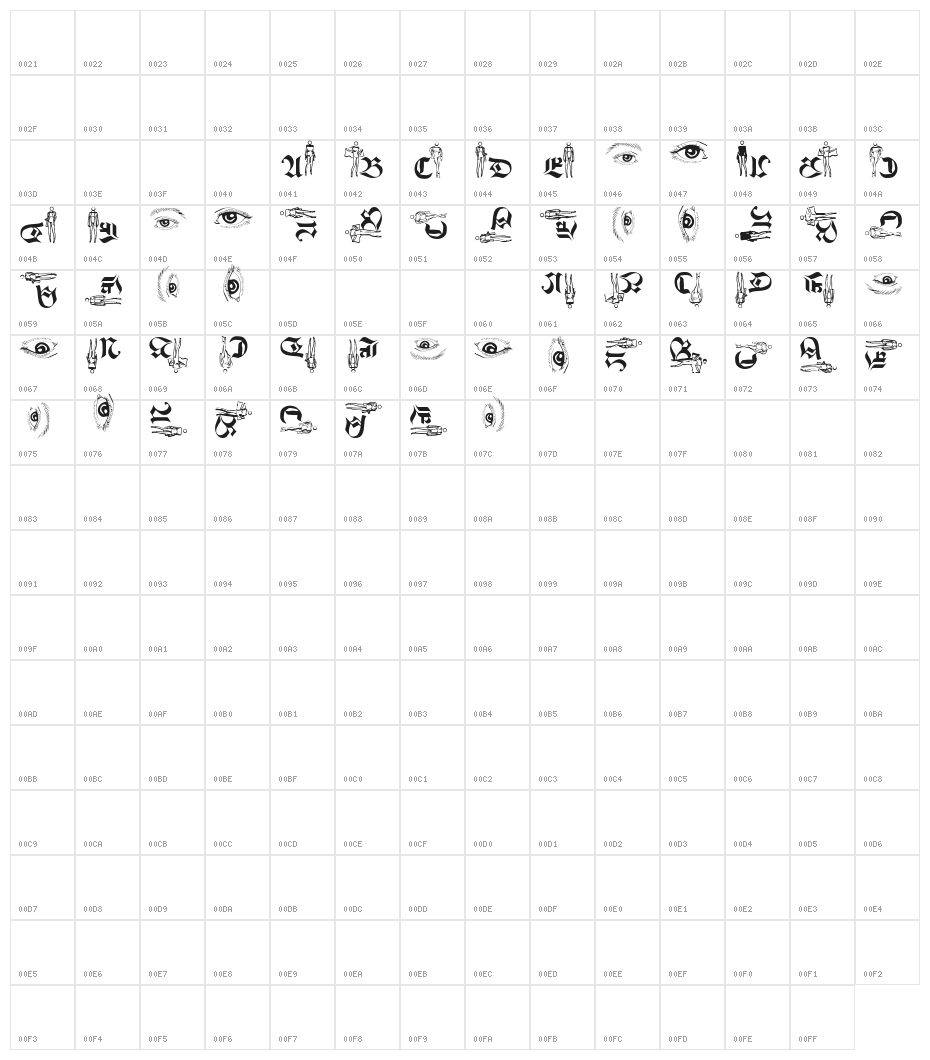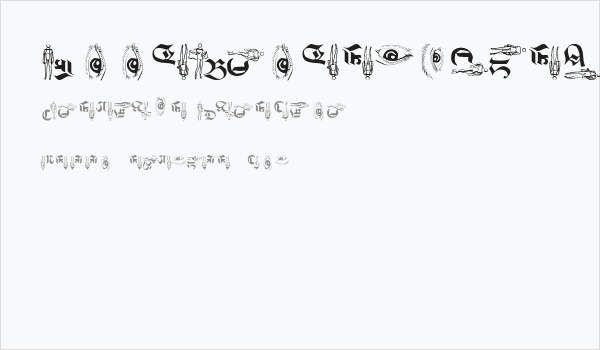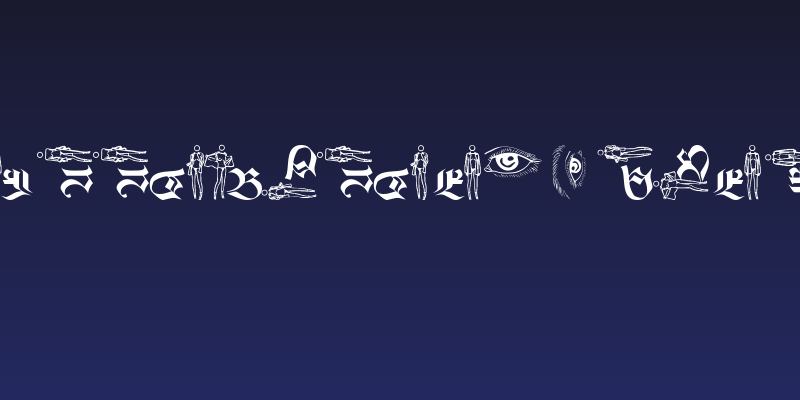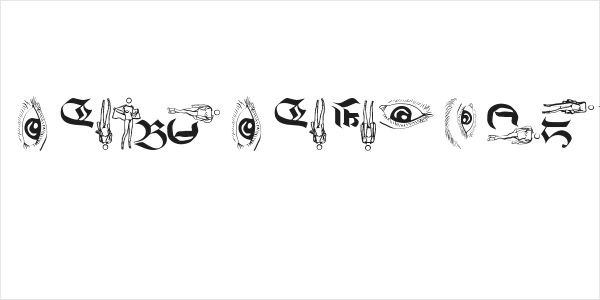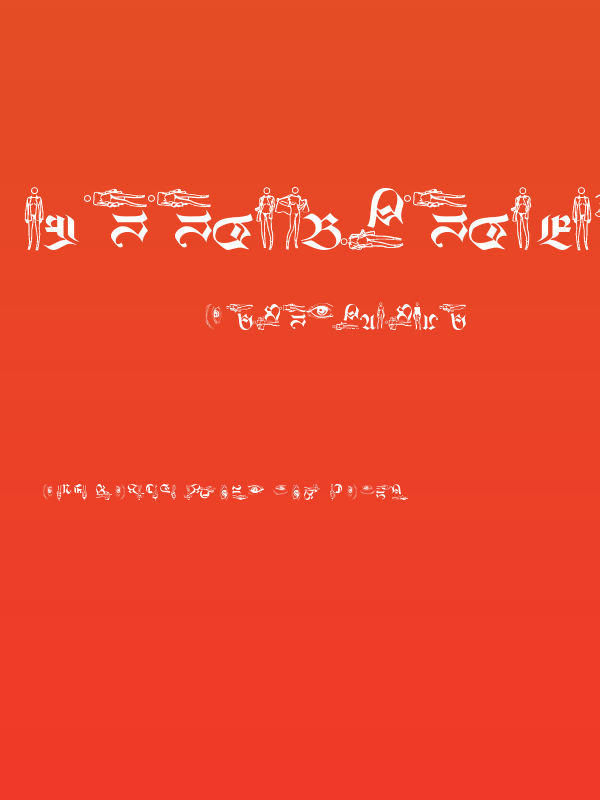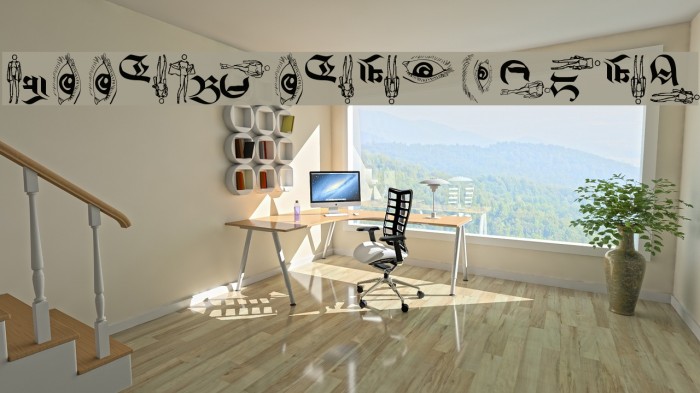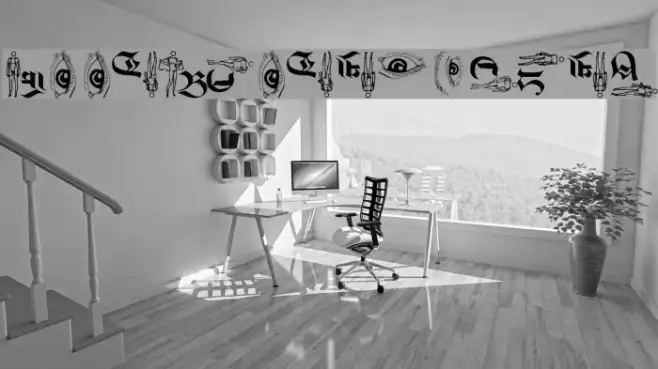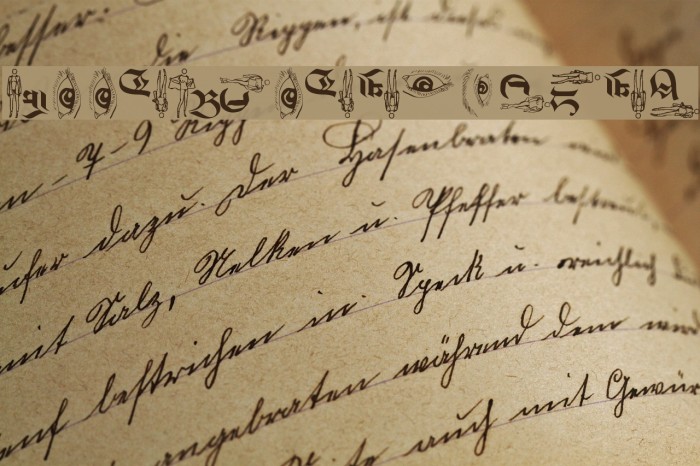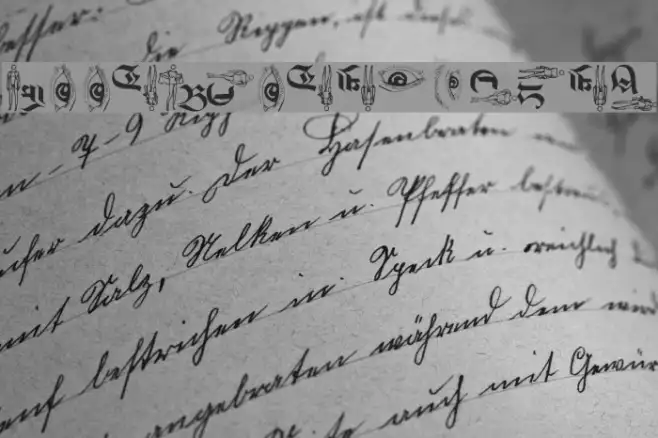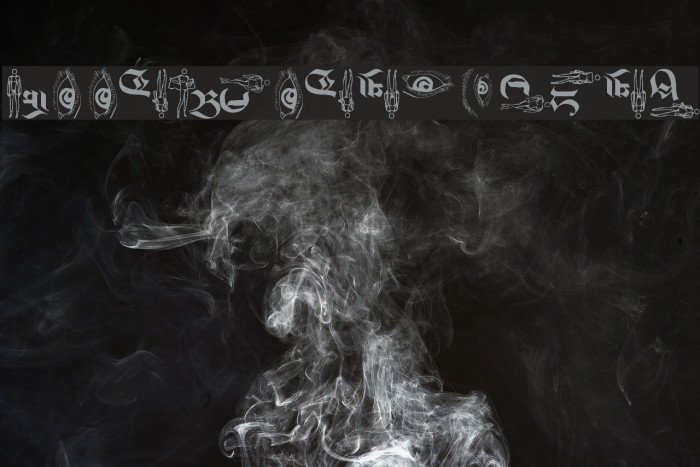
LookBrokenTypes Font
LookBrokenTypes Description
This font is a unique blend of artistic elements and traditional typography, incorporating detailed illustrations of eyes and human figures into each character. The design is reminiscent of Gothic or Blackletter styles, with bold, angular strokes and intricate details. Each letter is creatively integrated with visual elements, making it not only a typeface but also a piece of art. The characters are highly decorative, with a strong visual impact that draws attention. This font is not suitable for body text due to its complexity but excels in creating striking headlines or artistic designs.
| Use Case | Headlines, Artistic designs |
| Proposed Projects | Ideal for artistic posters, album covers, or any project requiring a bold, eye-catching design. |